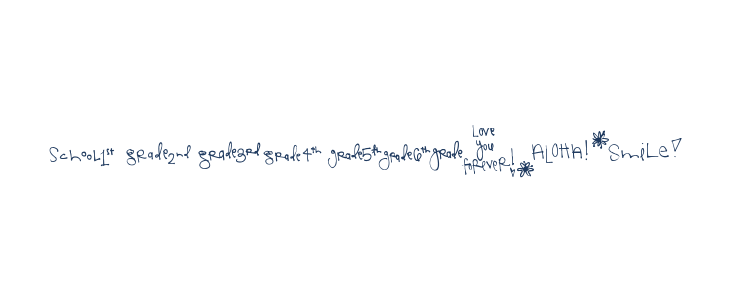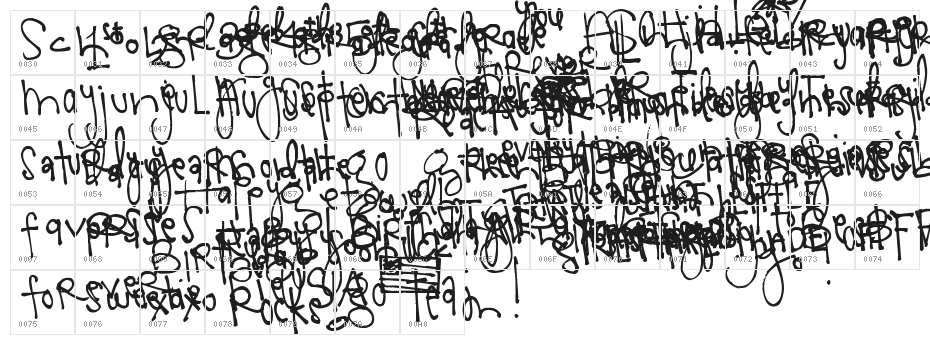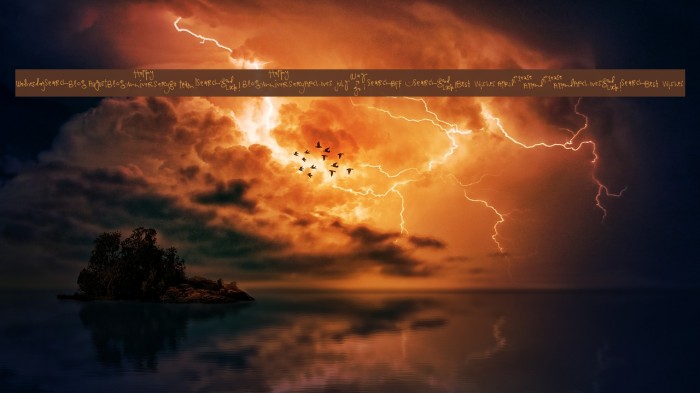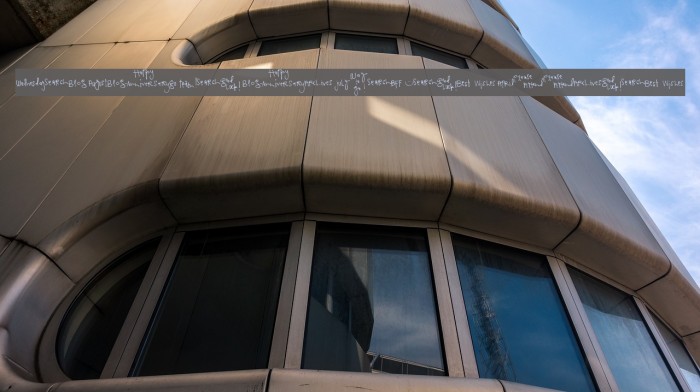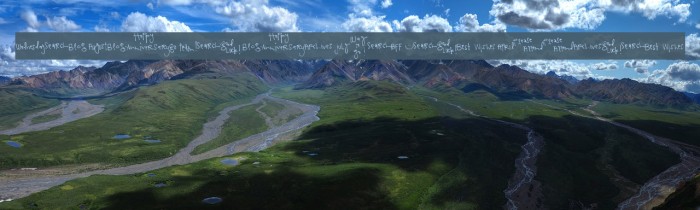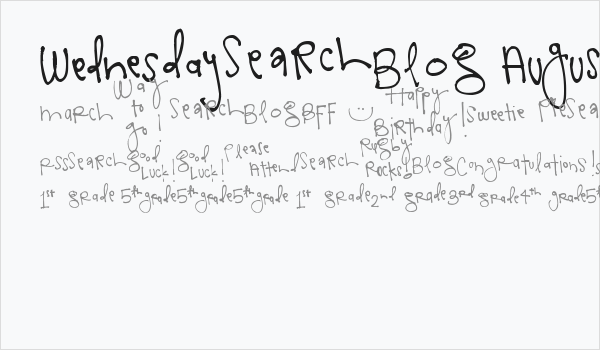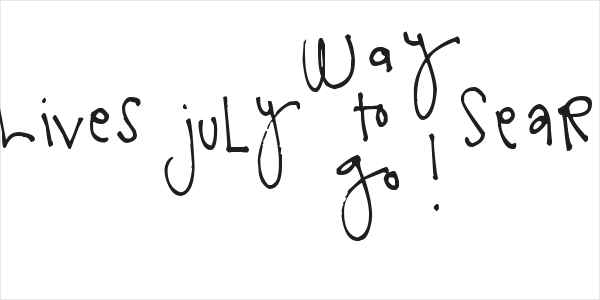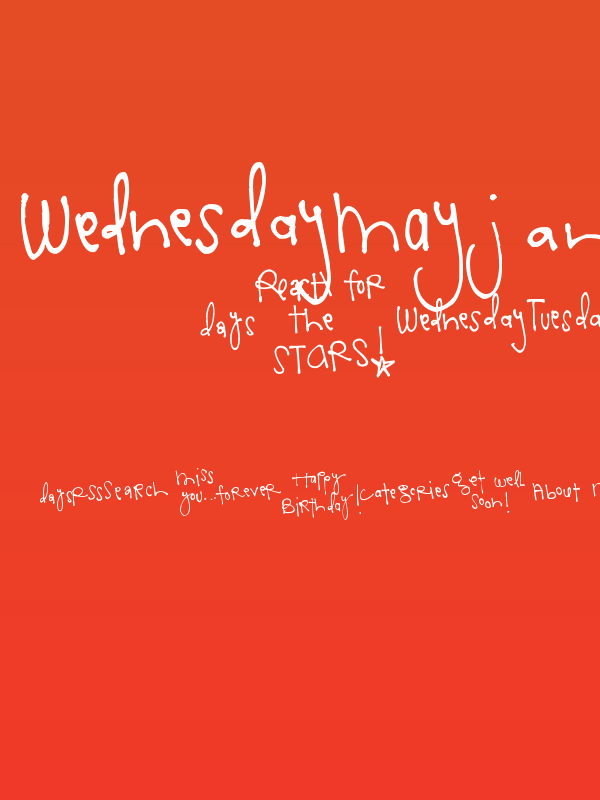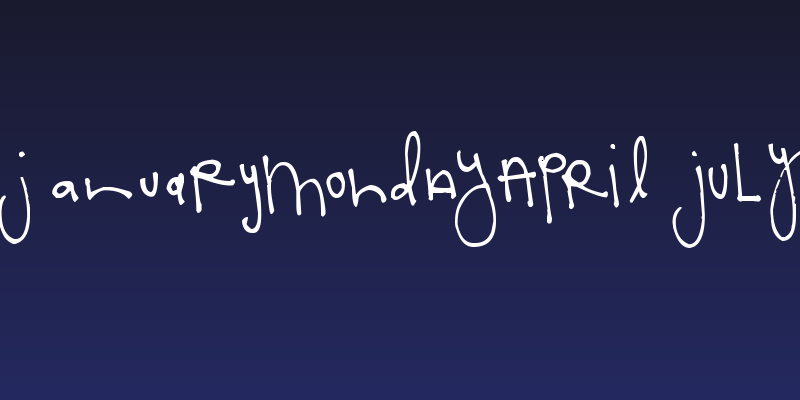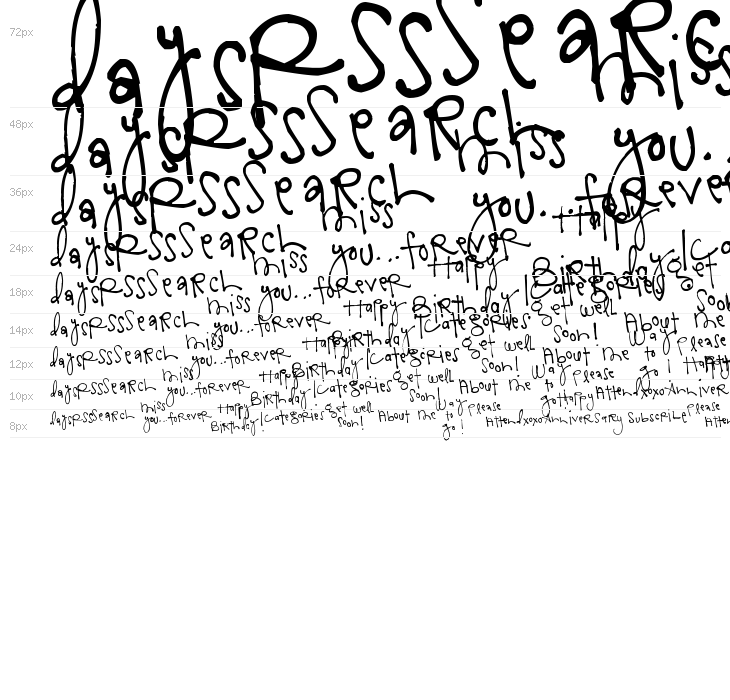
Pea Hanzel and Gretel's Doodles Font
Pea Hanzel and Gretel's Doodles Description
This whimsical and playful font features a handwritten style with a doodle-like appearance. The characters are irregular and quirky, with varying heights and slants, giving it a casual and informal feel. The strokes are thin and delicate, with some letters adorned with small embellishments like stars and hearts, adding to its charm. The overall look is reminiscent of a child's handwriting, making it perfect for projects that require a fun and lighthearted touch. The font includes a full set of uppercase and lowercase letters, numbers, and a selection of special characters, all maintaining the same playful aesthetic.
| Use Case | Greeting cards, Children's books, Creative projects |
| Proposed Projects | Ideal for children's books, greeting cards, playful branding, and creative invitations. |